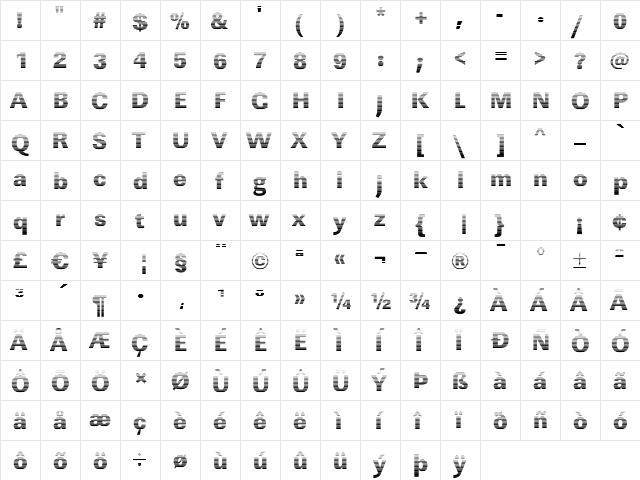
JeffBeckerGradient-Heavy Normal
Design Context for JeffBeckerGradient-Heavy Typeface
JeffBeckerGradient-Heavy offers clean, dependable letterforms without strong stylistic allegiance, making it a practical choice for designers who need flexibility.
Pro Tip: Use JeffBeckerGradient-Heavy in both headline and body roles to test its range before committing to a single application.